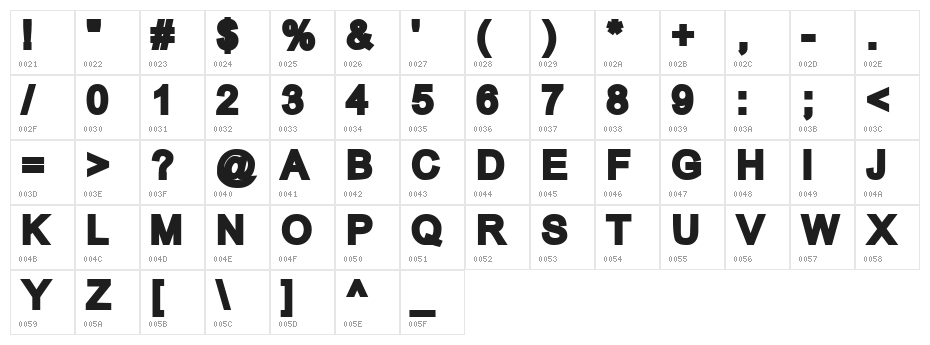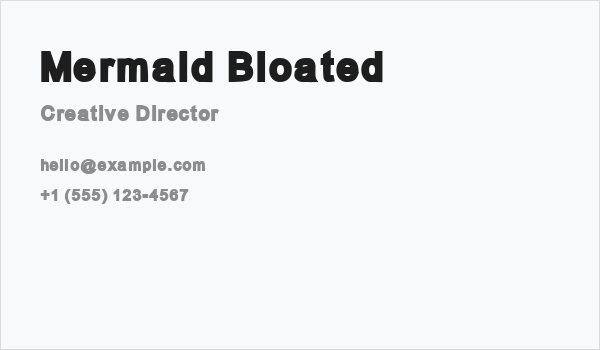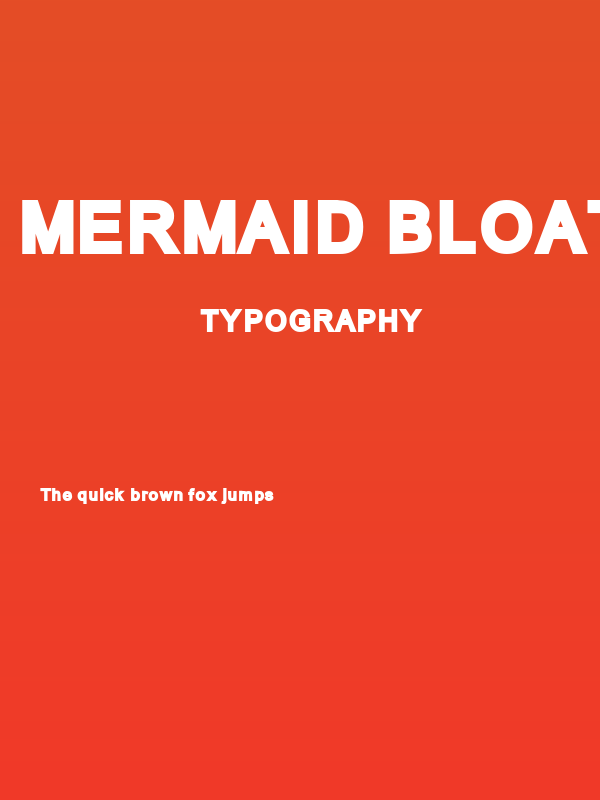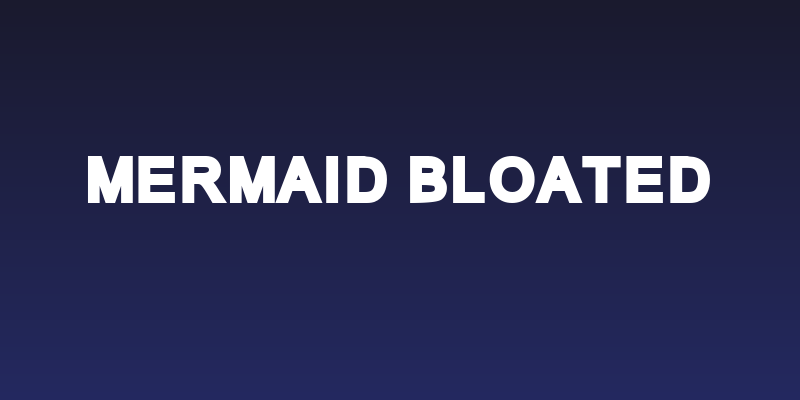
Mermaid Bloated Font
Mermaid Bloated Description
This font features bold, thick strokes with a strong presence, making it ideal for attention-grabbing headlines and impactful designs. The characters are uniformly wide, contributing to a sense of stability and strength. The uppercase and lowercase letters maintain a consistent style, with rounded edges that soften the overall look. The numerals are equally bold, ensuring they stand out in any context. Special characters are designed with the same weight and style, providing a cohesive appearance across all elements. This font's robust design makes it suitable for a variety of uses where visibility and emphasis are key.
| Proposed Projects | Ideal for posters, advertisements, branding materials, and any design requiring strong visual impact. |